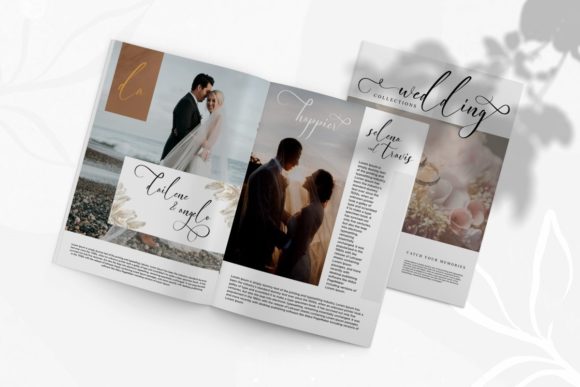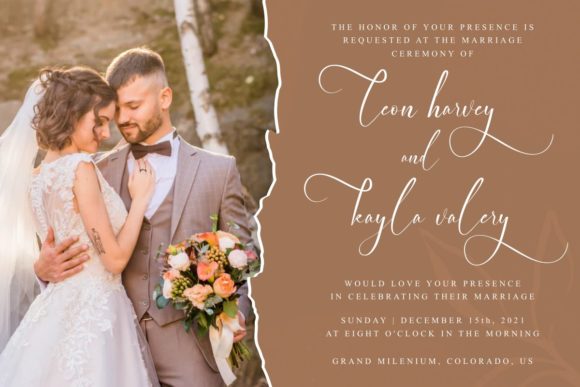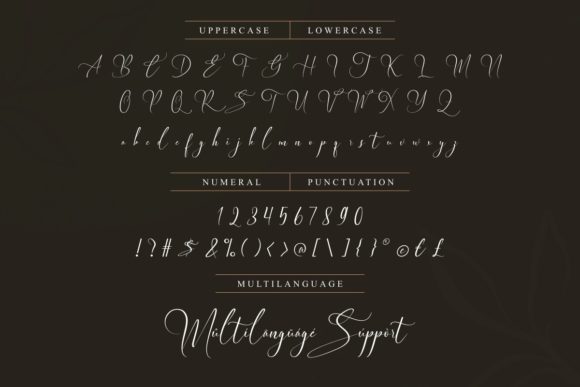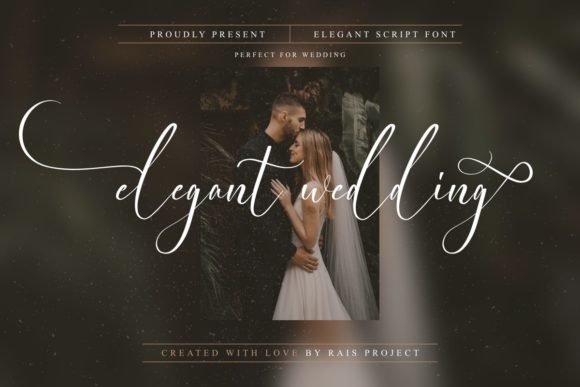
Introduction to Elegant Wedding Font
Elegant Wedding is a delicate and fashionable script font.
It is perfect for any branding project, such as logos, t-shirt printing, creative products, and more This font is PUA encoded, which means you can access all of the glyphs and swashes with ease.
Key Features of Elegant Wedding Font
Why Choose Elegant Wedding Font?
Elegant Wedding Font offers exceptional quality and versatility, making it a valuable addition to your design toolkit. Whether you’re creating for personal projects or commercial use, Elegant Wedding Font delivers professional results.